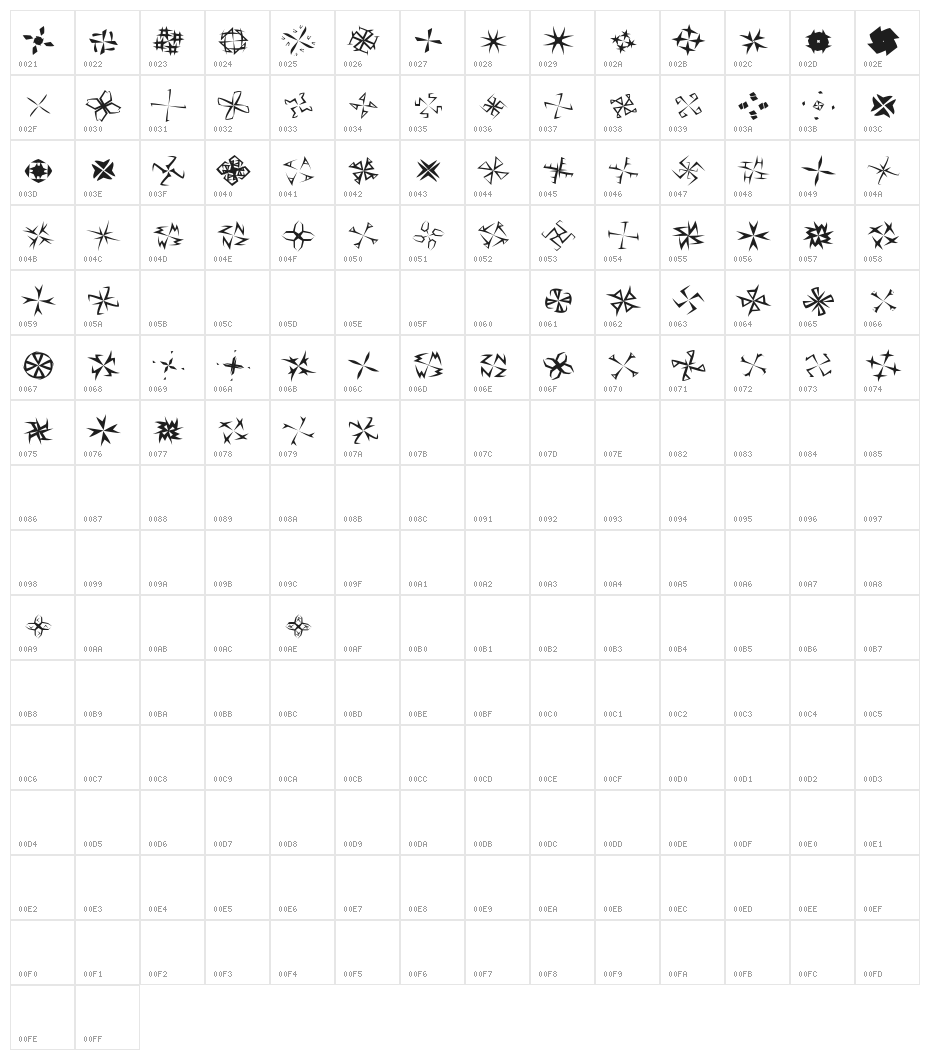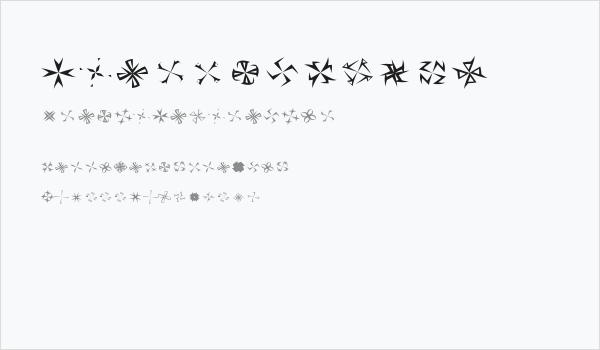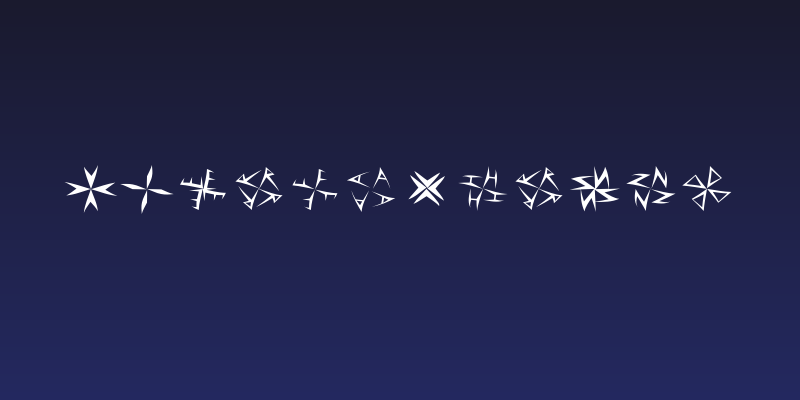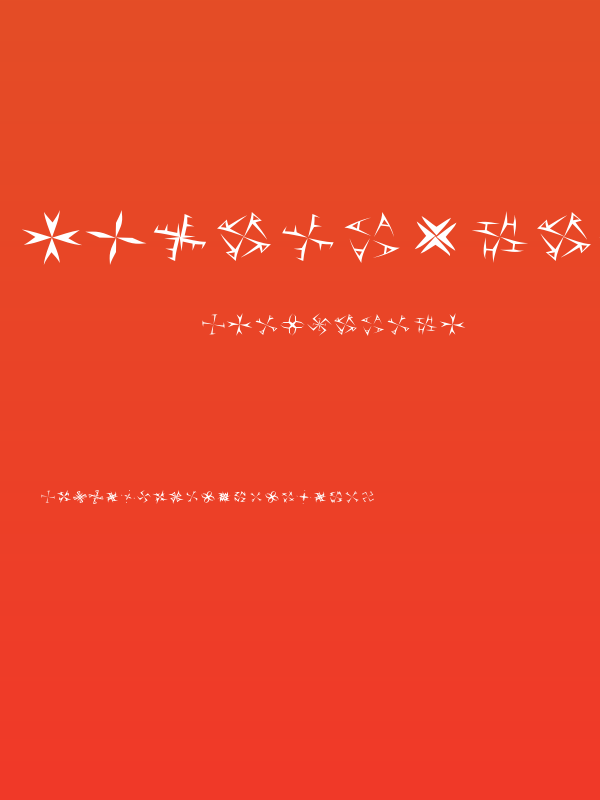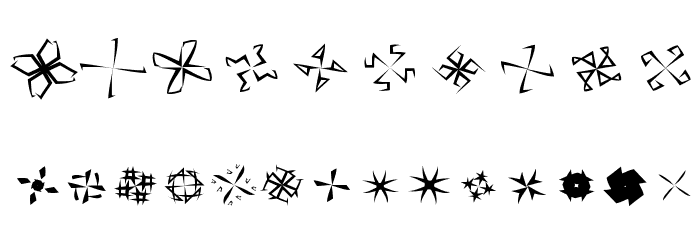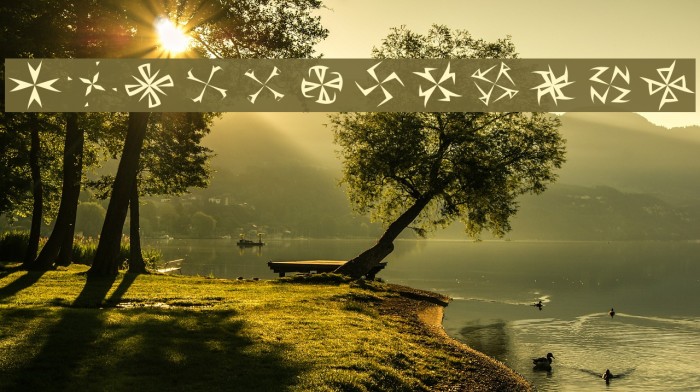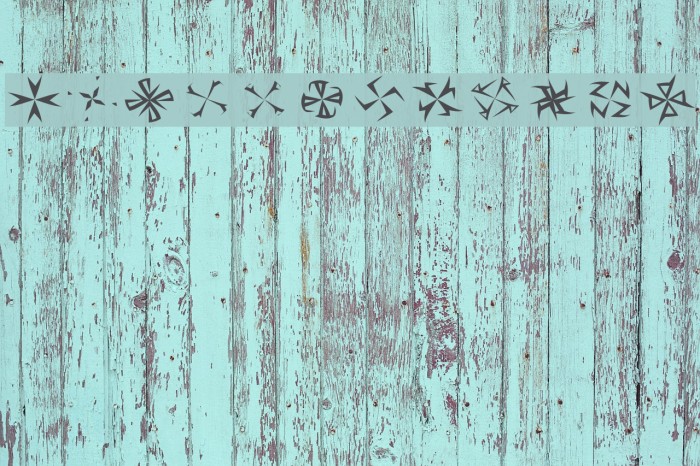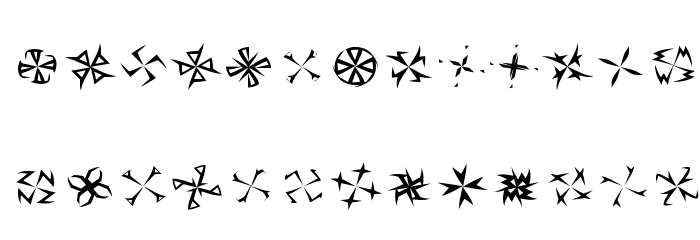
VierfachRund Font
VierfachRund Description
This is not a valid font. The image contains a series of abstract symbols and shapes that do not correspond to any recognizable alphabet or numerical system. The symbols appear to be decorative and artistic, featuring a variety of geometric patterns and star-like designs. Each symbol is unique, with intricate details and varying line thicknesses, suggesting a focus on visual creativity rather than functional typography.
| Use Case | Logos, Decorative elements |
| Proposed Projects | These symbols could be used in graphic design projects, such as creating unique logos, decorative elements in digital art, or as part of a branding package for a creative company. |